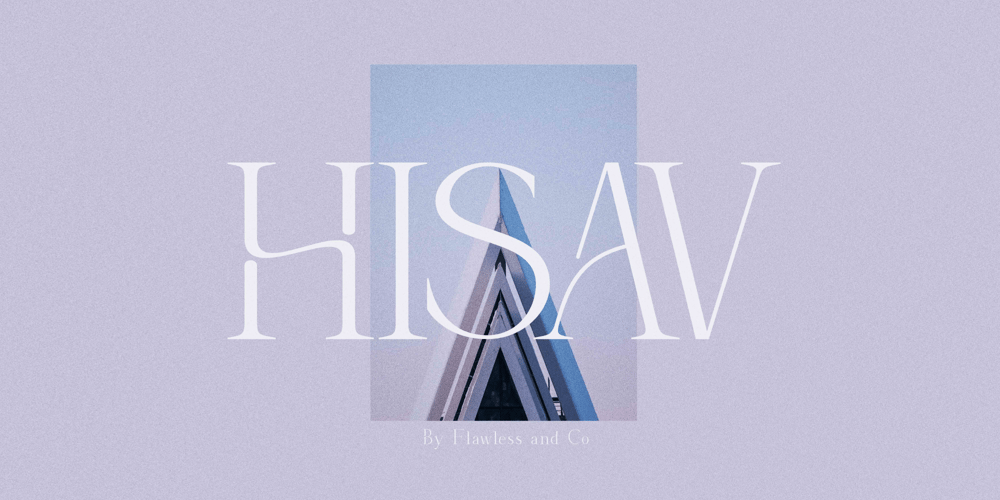
Hisav Font Family was designed by Achmad Yani and published by Flawlessandco. Hisav contains 1 styles and family package options. Hisav is a modern elegant serif, with some connected letters that are perfect for branding materials, t-shirt, logo, poster, photography, quotes, and many more. Modern serif font type to complete your display creation such as wedding invitation card, etc.If you need help, just write me! Thanks so much for checking out my shop!